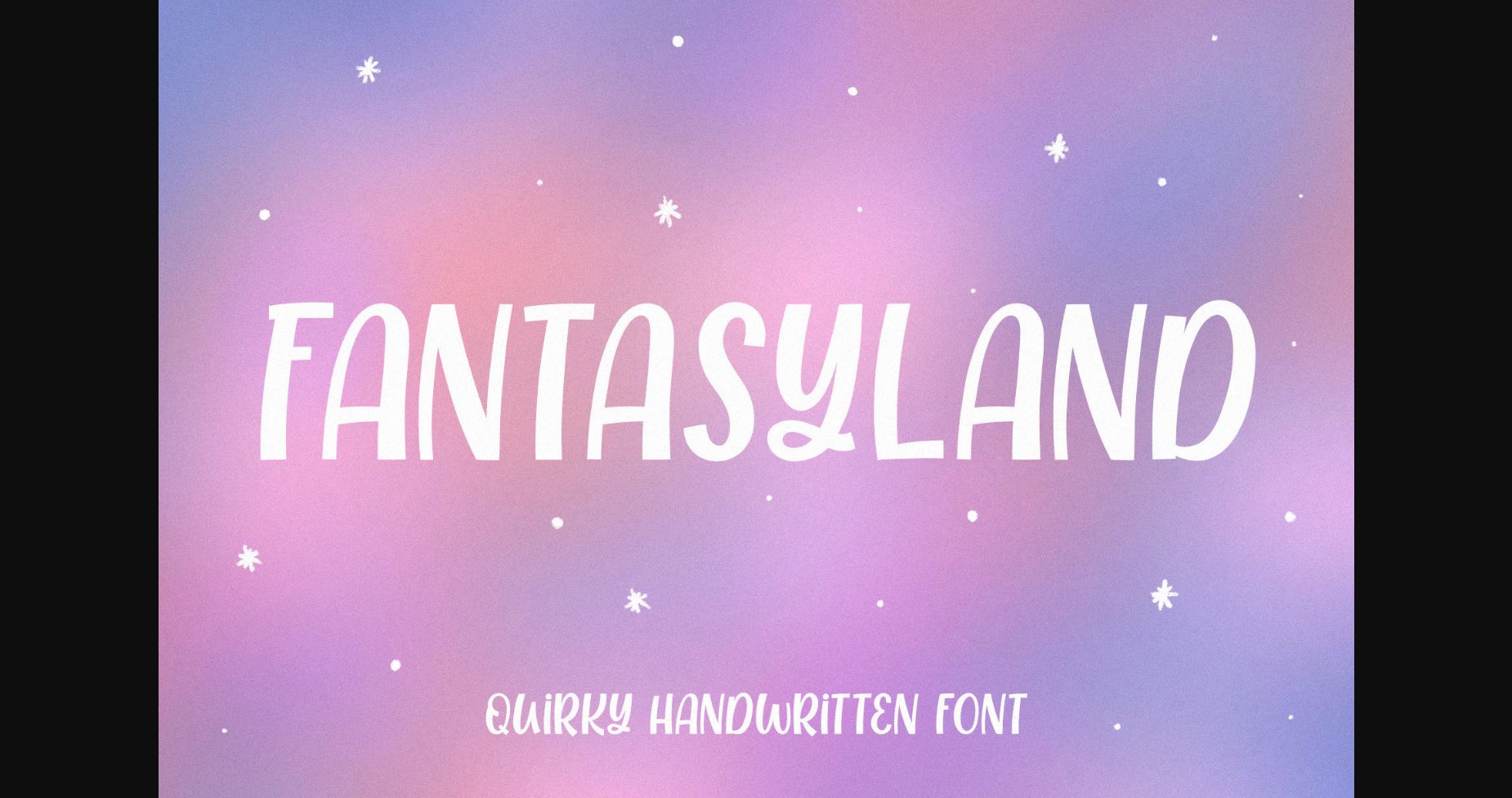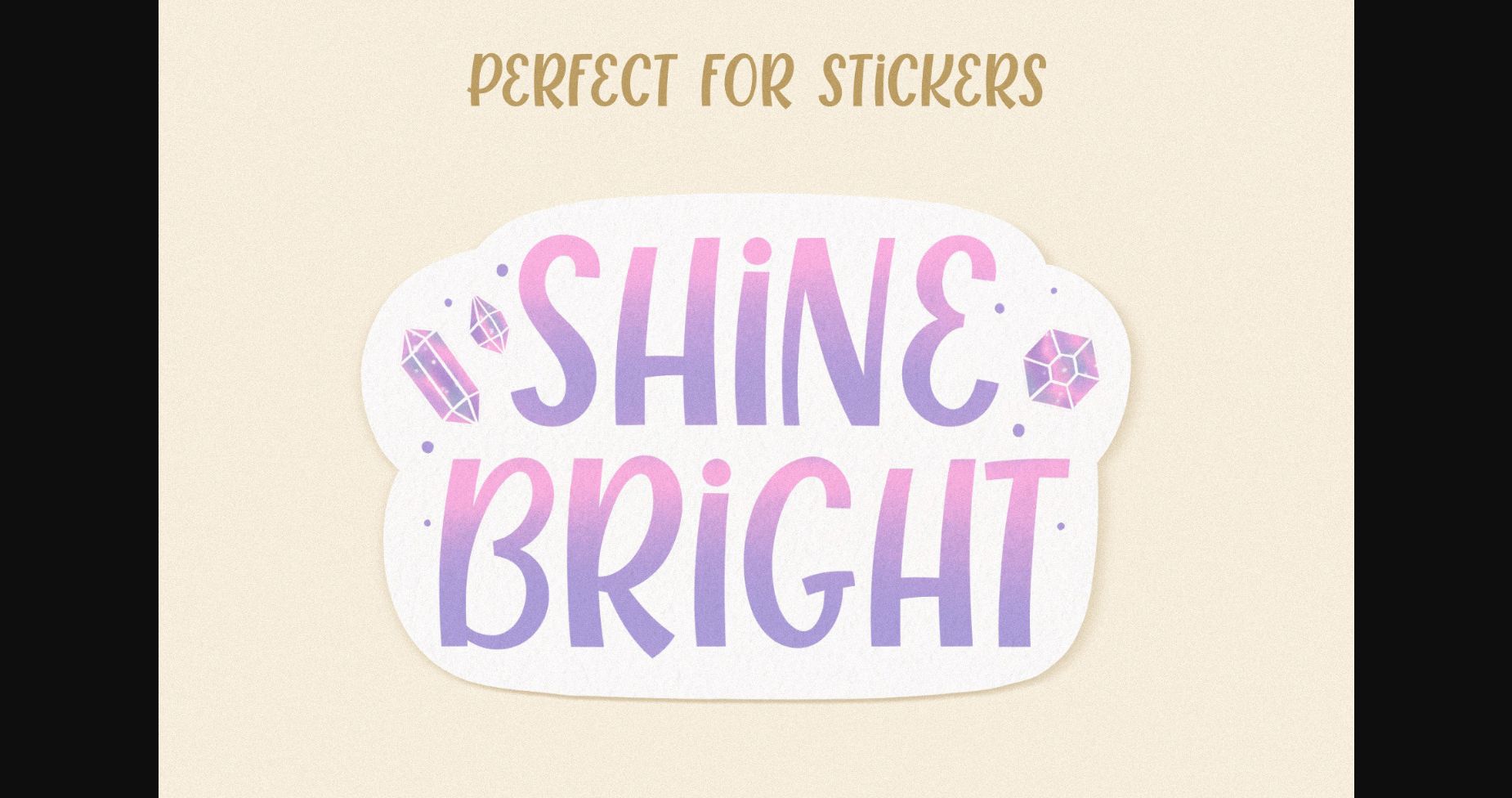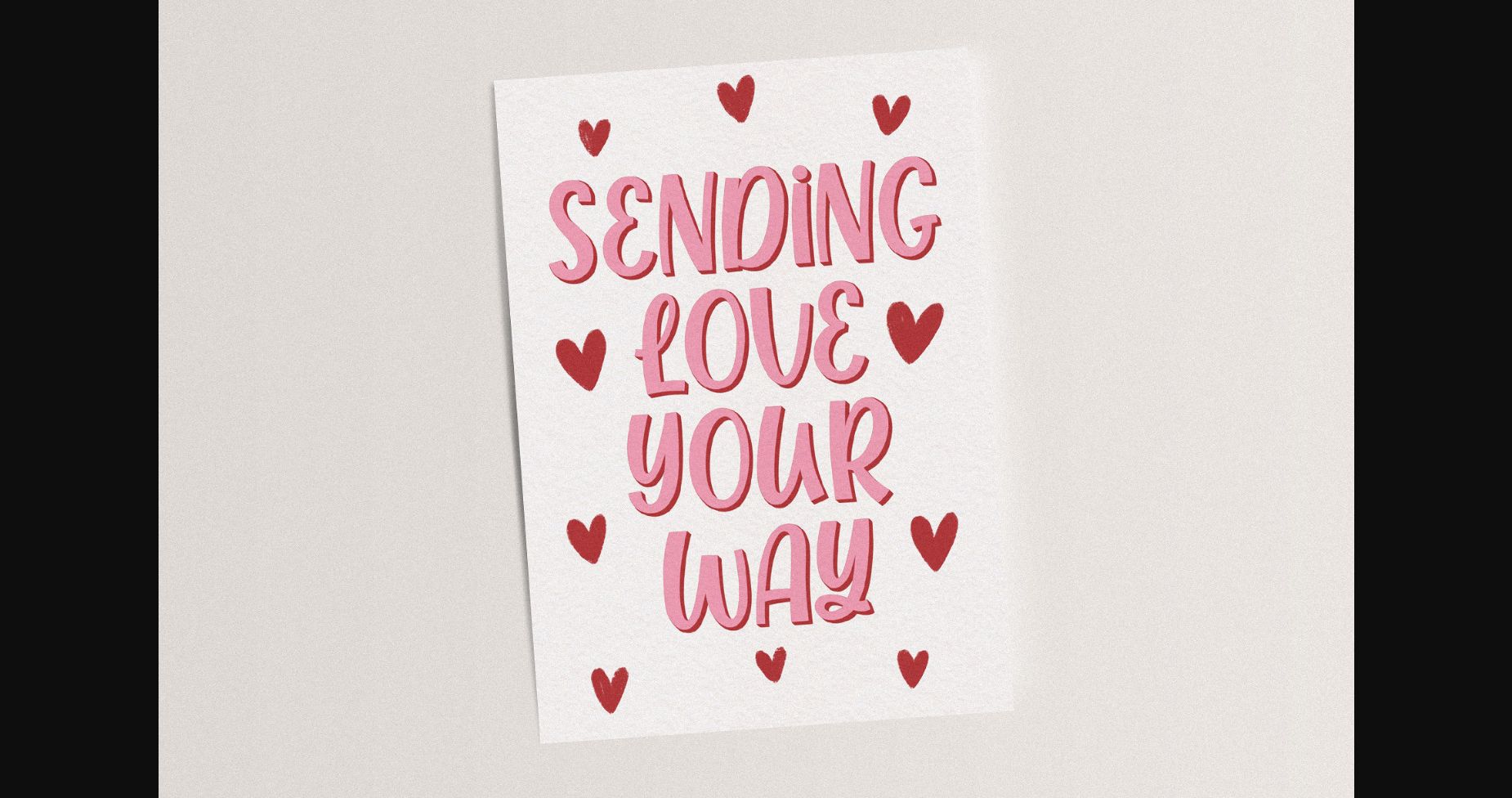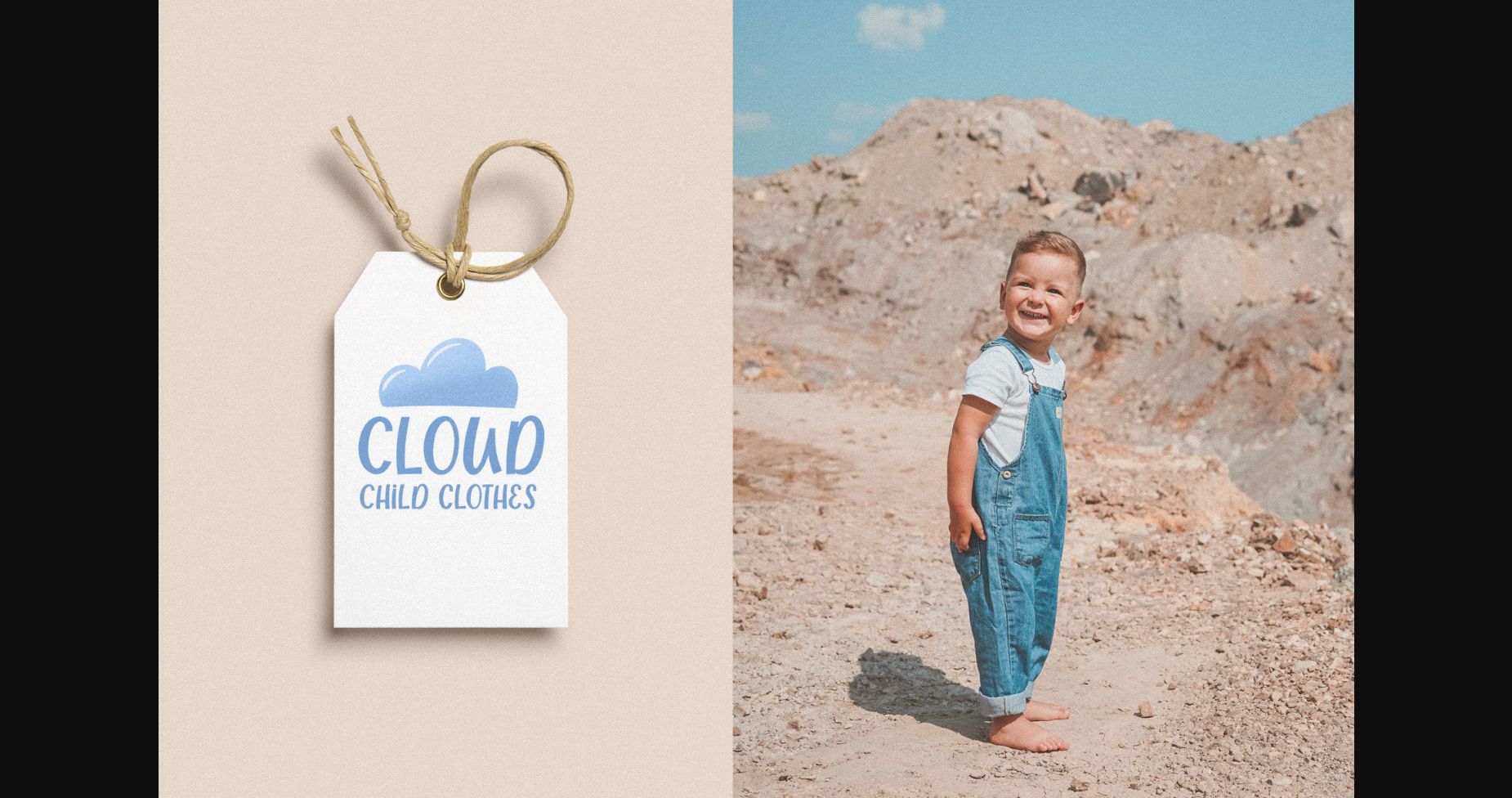
About Fantasyland Font
Fantasylands is a cute and quirky handwritten font with an incredibly friendly feel. Whether you’re looking for fonts for Instagram or handwritten scripts for DIY projects, Fantasylands will turn any creative idea into a piece of art!